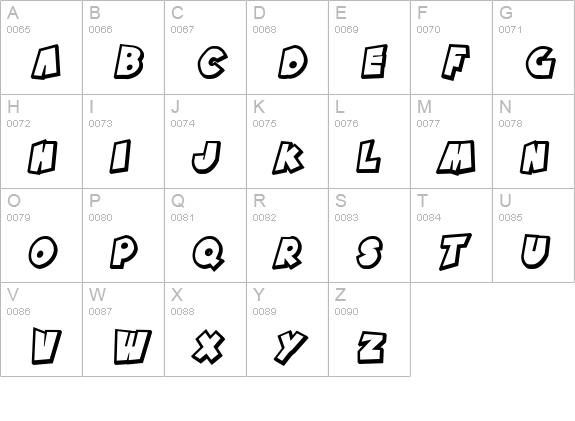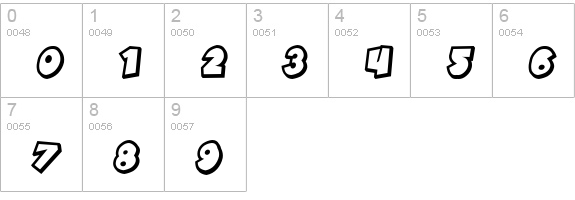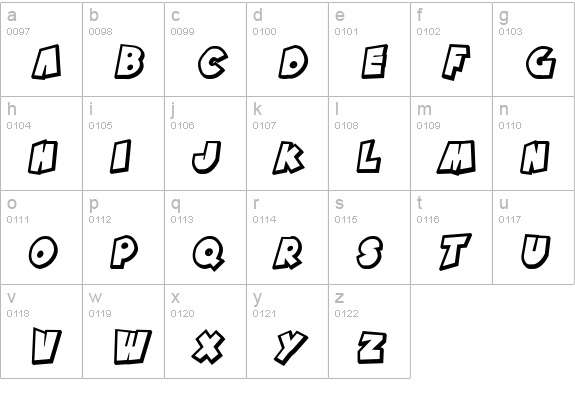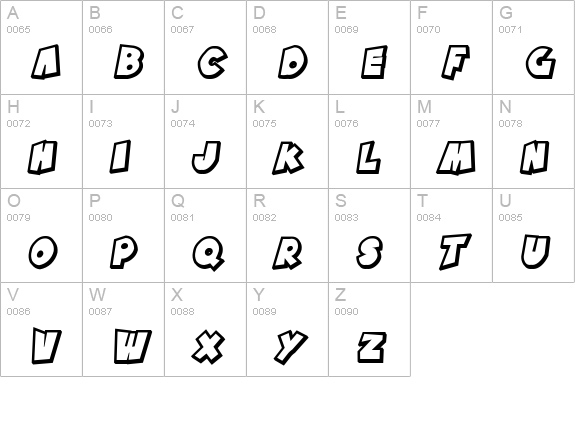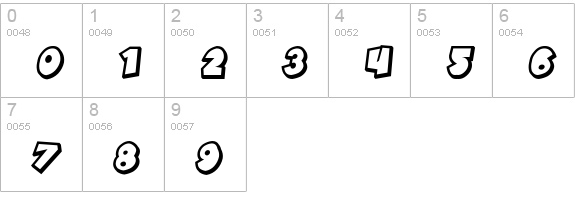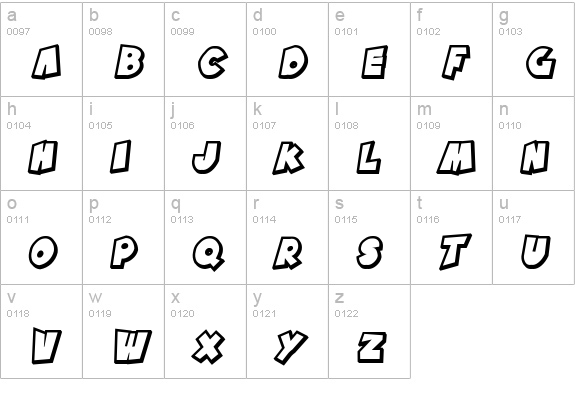
SF Pale Bottom Shaded Oblique Font Details
SF Pale Bottom Shaded Oblique is a distinctive, italic variant in the SF typeface family \xE2\x80\x94 well suited to design and typography projects.
SF Pale Bottom Shaded Oblique font is a stunning display typeface that exudes a sense of elegance and sophistication. Its unique design, with its subtle shading and slanted style, adds a touch of modernity to any project it is used in. The carefully crafted letterforms are eye-catching and effortlessly draw attention to your text. This font is perfect for a wide range of design applications, from logo design and branding to editorial layouts and advertising campaigns. Its versatility allows it to be used in both digital and print media, ensuring that your message is consistently conveyed across different platforms. What sets SF Pale Bottom Shaded Oblique font apart is not only its exceptional aesthetics but also its availability as a free download. Yes, you read that right - this remarkable font is freely available to download at FontsMarket.com. This makes it a fantastic choice for designers and creatives who are looking to enhance their projects without breaking the bank. Whether you're a professional designer or simply someone with a passion for typography, SF Pale Bottom Shaded Oblique font is a must-have in your font library. Its sleek and contemporary appearance will elevate your designs to new heights, making a lasting impression on your audience. So don't wait any longer - head over to FontsMarket.com and get your hands on this incredible font. With SF Pale Bottom Shaded Oblique font, the possibilities are endless, and your creativity will know no bounds.